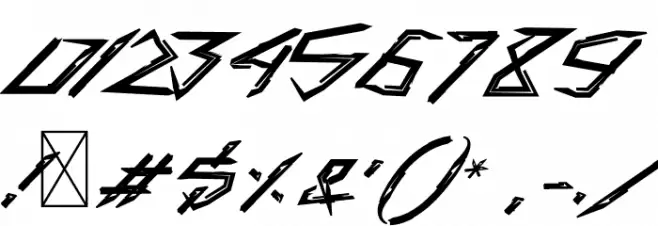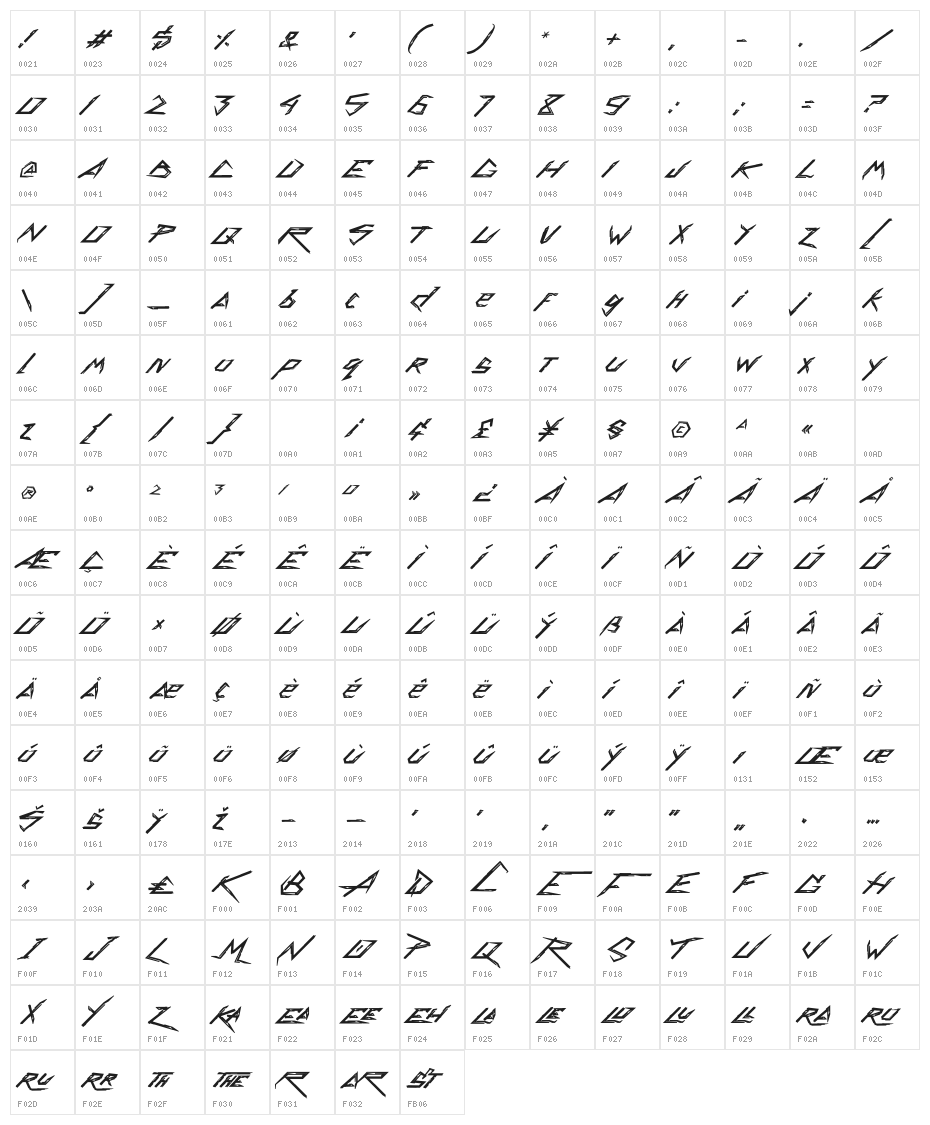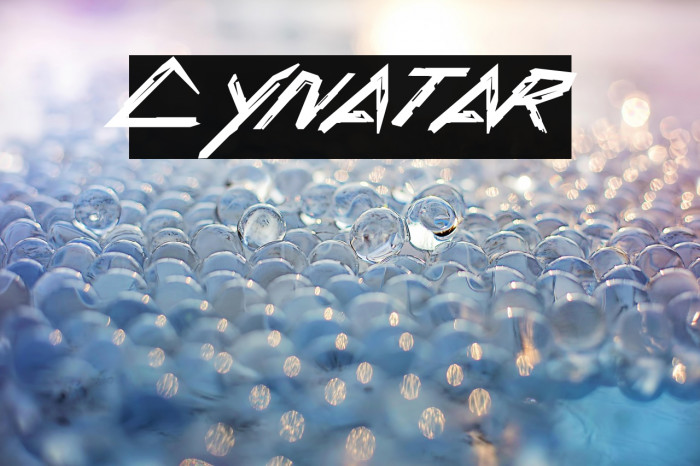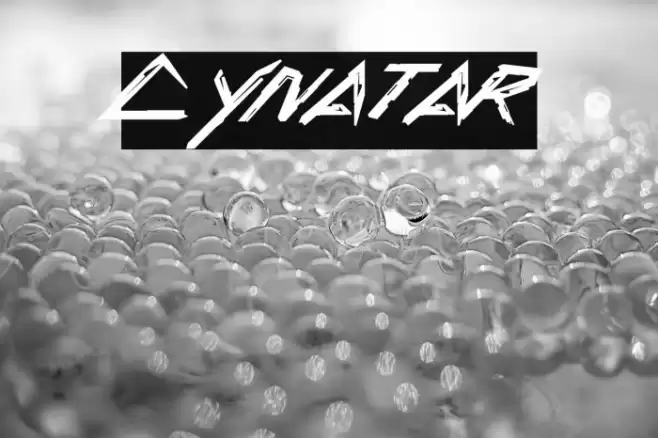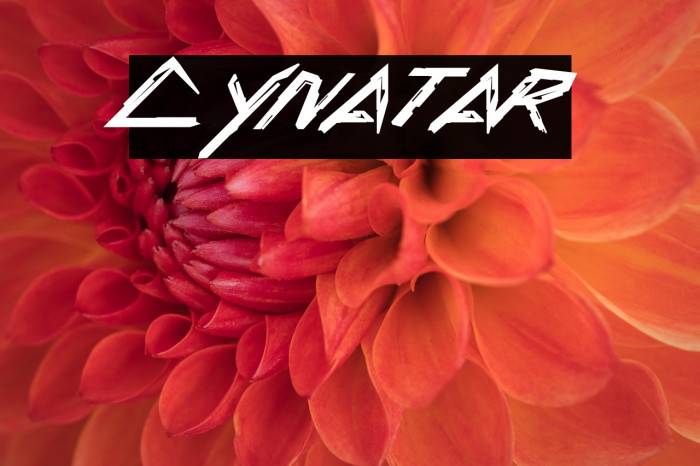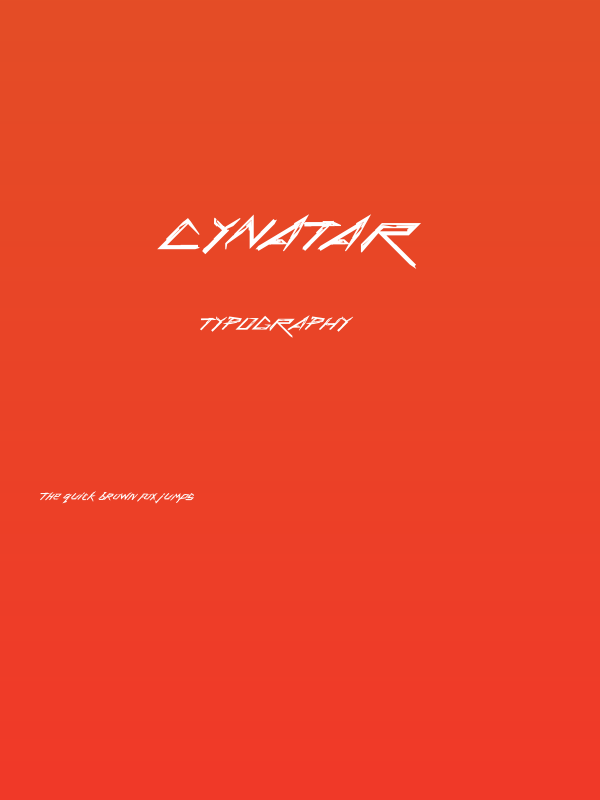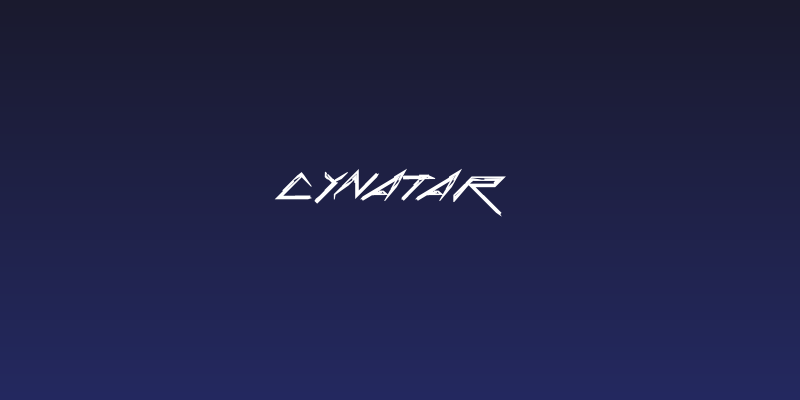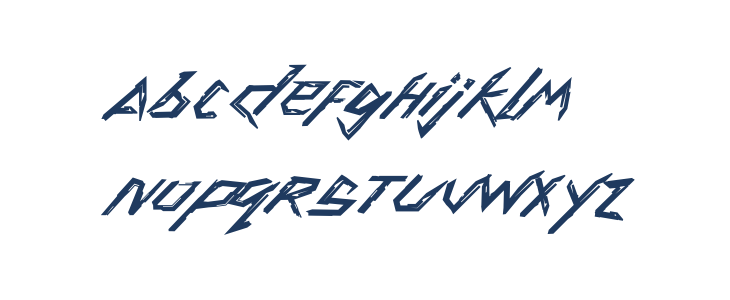
Cynatar Font
Cynatar Description
This font features a bold and aggressive style with sharp, angular lines and a futuristic aesthetic. Each character is designed with a dynamic, almost jagged appearance, giving it a sense of motion and energy. The uppercase and lowercase letters maintain a consistent style, with exaggerated points and edges that create a striking visual impact. Numbers and special characters follow the same design principles, ensuring uniformity across the font. The overall look is reminiscent of graffiti or street art, making it ideal for projects that require a bold, edgy statement.
| Overall Style | Futuristic, Edgy |
| Proposed Projects | Ideal for music album covers, video game titles, urban-themed posters, and branding for edgy or modern products. |